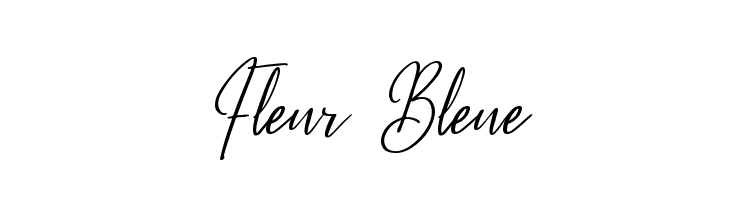
An elegant script font with fluid, cursive strokes and ornate uppercase letters.
An elegant and sophisticated script font with flowing cursive letterforms.